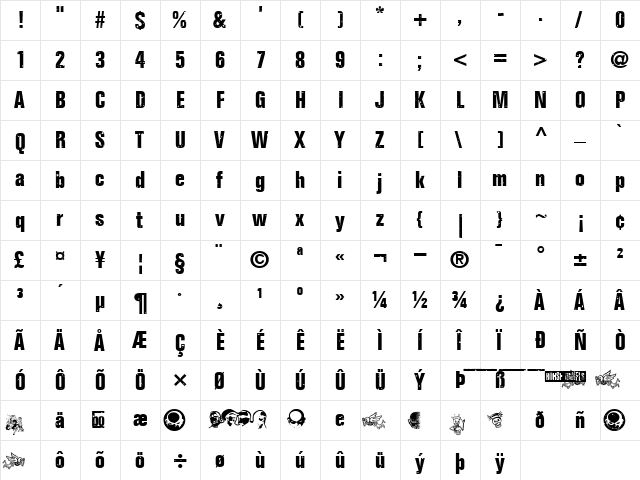
ONKELZ 2014 Regular
| Foundry | Thomas Stupan (NEWTOM) |
| Designer | Thomas Stupan |
Design Context for ONKELZ 2014 Typeface
ONKELZ 2014 offers clean, dependable letterforms without strong stylistic allegiance, making it a practical choice for designers who need flexibility.